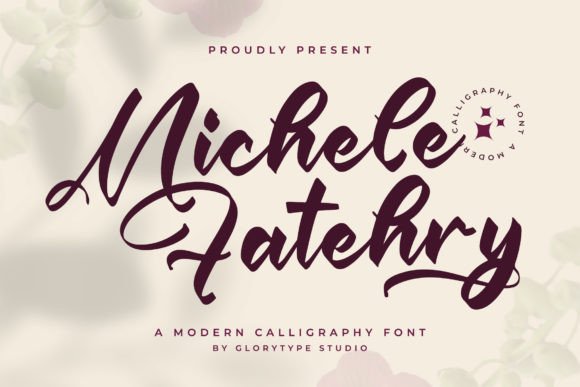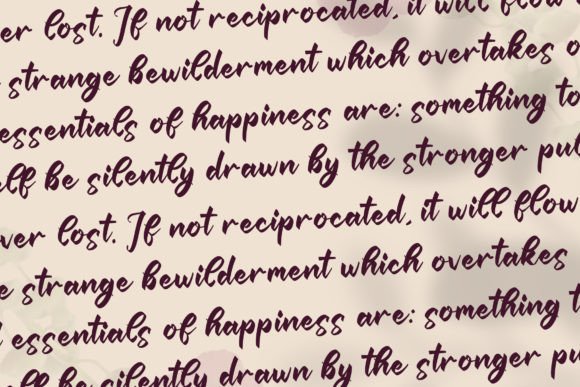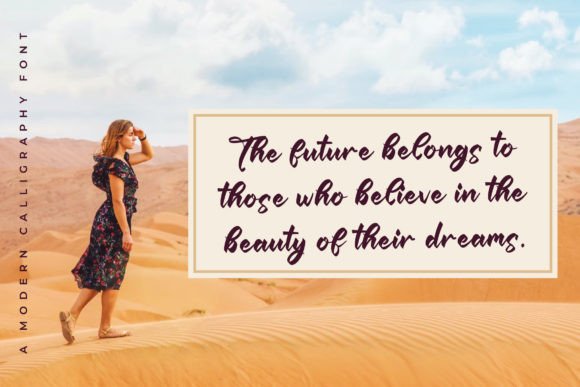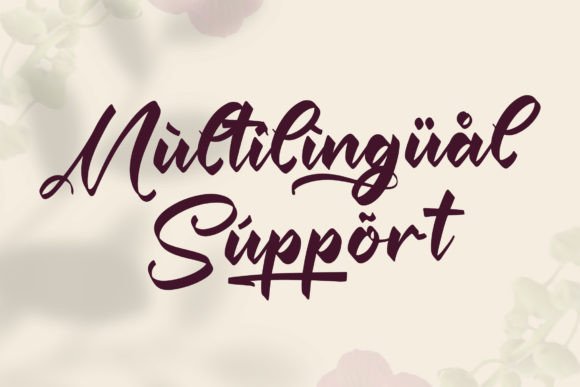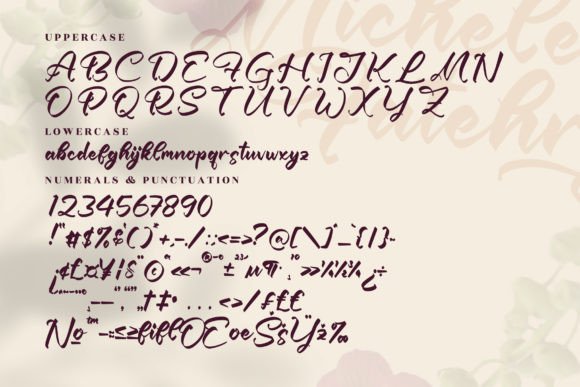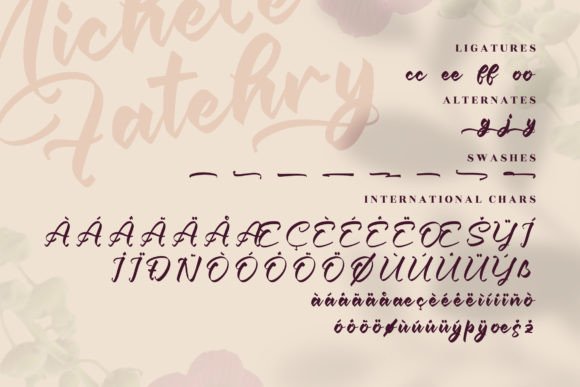
About Michele Fatehry Font
**Michele Fatehry – Modern Calligraphy Font** is a stunning and versatile script font that adds a touch of elegance and sophistication to a wide range of design projects. This modern calligraphy font is suitable for a myriad of applications, making it a valuable asset for creating beautiful and tasteful designs in various contexts.
One of the standout features of Michele Fatehry is its modern calligraphy style, characterized by graceful and flowing letterforms. Each letter is meticulously crafted to convey a sense of beauty and refinement, making this font an excellent choice for projects where you want to create an elegant and tasteful atmosphere.
The versatility of Michele Fatehry shines in various design contexts. It can be applied to logos, branding projects, homeware designs, product packaging, mugs, quotes, posters, shopping bags, t-shirts, book covers, name cards, invitation cards, greeting cards, labels, photography watermarks, special events, and more. Its beautiful script style ensures that your work is not only visually appealing but also exudes a sense of taste and elegance.
For logos and branding projects, Michele Fatehry adds a touch of sophistication and uniqueness to your brand identity, making it memorable and captivating.
In product packaging and labels, this font enhances the visual appeal and refinement of your products, creating a sense of luxury and style.
For quotes, posters, and greeting cards, Michele Fatehry brings an element of elegance and beauty to your messages, making them more impactful and resonant.
In special event invitations and name cards, this font sets a tone of sophistication and adds a personalized touch to your designs.
Michele Fatehry – Modern Calligraphy Font is a font that elevates the visual and emotional impact of your projects. Whether you’re working on branding, product packaging, posters, or special event invitations, Michele Fatehry can be your go-to font for adding a touch of elegance and beauty that enhances the overall appeal of your creative work.